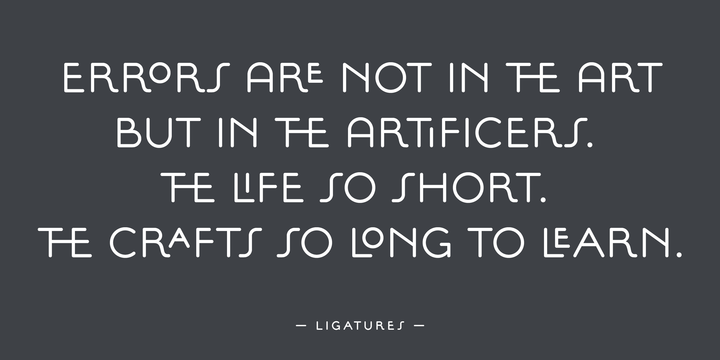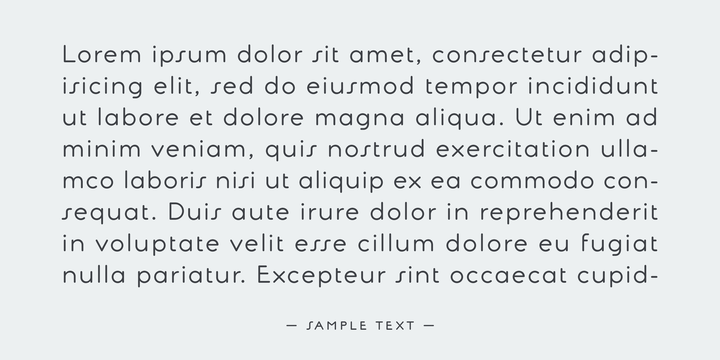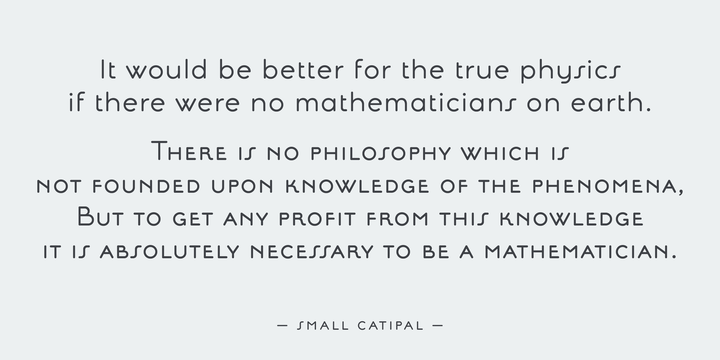
Camera Font Sans Serif
Legible, simple and very lovely sans serif is based on art deco advertisement from 1800s to early 20th. The sweetest sans for your retro-style project. This font include ligatures and small capital for advanced typography.